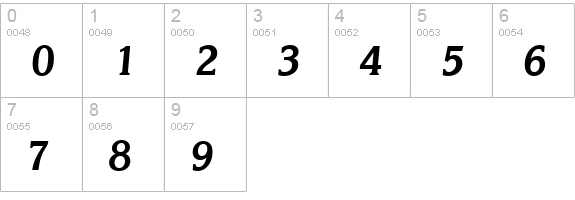
KorinthSerial-BoldItalic is a stylish and versatile font that exudes confidence and sophistication. With its bold and italicized design, this typeface is perfect for making a statement in your projects. Whether you're designing a logo, creating eye-catching headings, or crafting elegant invitations, KorinthSerial-BoldItalic is sure to elevate your work to the next level. The best part? This premium font is available for free download at FontsMarket.com. Embrace the boldness and elegance of KorinthSerial-BoldItalic in your designs today and make a lasting impression.